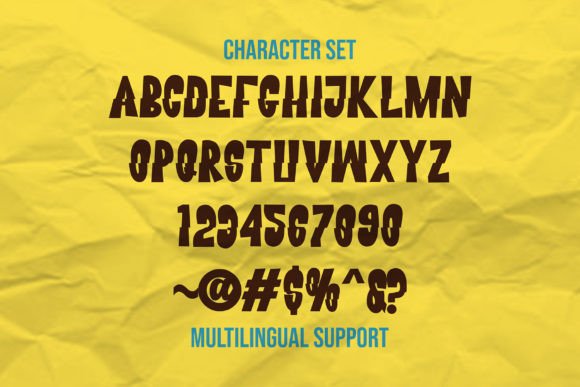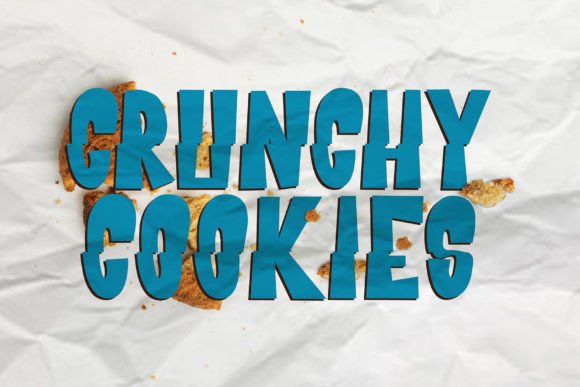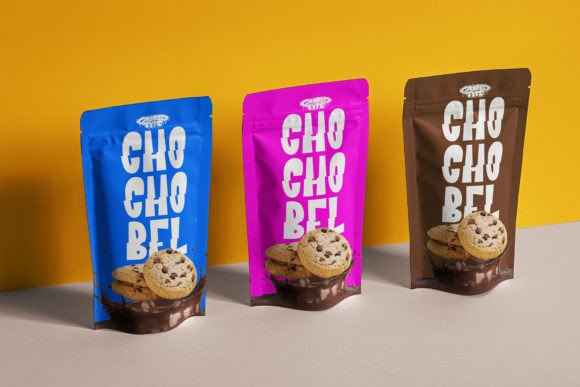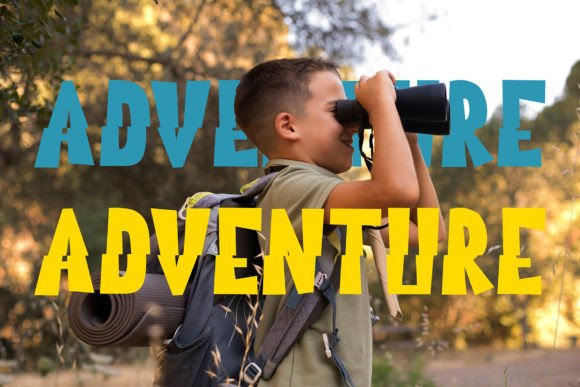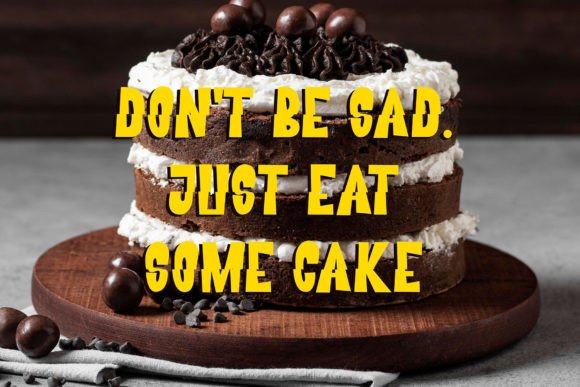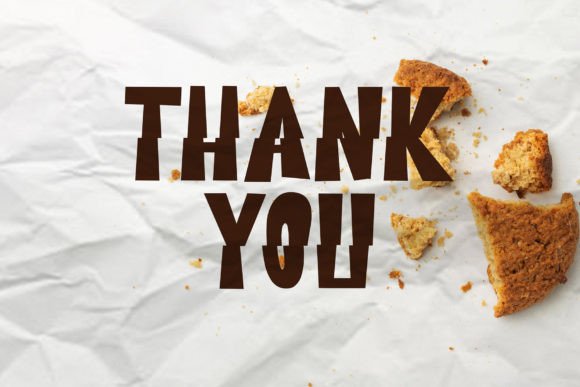
Introducing Choco Bro Font: The Cute and Chubby Display Font for Playful Designs
Are you looking for a font that can add a touch of playfulness and whimsy to your design projects? Look no further than Choco Bro Font, a delightful display font characterized by its truncated or shortened characters. In this article, we’ll explore the unique features of Choco Bro Font, its uses, and why it’s perfect for designers and crafters who want to create fun and engaging designs.
What is Choco Bro Font?
Choco Bro Font is a cute and chubby display font that features truncated or shortened characters. This means that certain parts of the letterforms are cut off or abbreviated, giving the font a unique and distinctive appearance. The truncated characters add a quirky and playful touch to the font, making it perfect for designs that require a fun and whimsical typographic style.
Characteristics of Choco Bro Font
Choco Bro Font has several characteristics that make it stand out from other fonts. Some of its key features include:
- Truncated characters: The font features truncated or shortened characters, which give it a unique and playful appearance.
- Cute and chubby design: The font has a cute and chubby design, making it perfect for children’s themes or playful designs.
- Display font: Choco Bro Font is a display font, which means it’s designed to be used at larger sizes to make a bold statement.
Uses of Choco Bro Font
Choco Bro Font is a versatile font that can be used for a variety of design projects, including:
- Children’s themes: The font’s playful and whimsical design makes it perfect for children’s themes, such as children’s books, posters, or invitations.
- Playful designs: The font’s quirky and playful touch makes it suitable for designs that require a fun and lighthearted typographic style.
- Posters and invitations: Choco Bro Font can be used to create eye-catching posters and invitations that are sure to grab attention.
- Crafting and DIY projects: The font’s cute and chubby design makes it perfect for crafting and DIY projects, such as scrapbooking, card making, or crafting.
Why Choose Choco Bro Font?
There are several reasons why designers and crafters should choose Choco Bro Font for their design projects. Some of the benefits of using Choco Bro Font include:
- Unique and distinctive appearance: The font’s truncated characters give it a unique and distinctive appearance that sets it apart from other fonts.
- Playful and whimsical design: The font’s playful and whimsical design makes it perfect for designs that require a fun and lighthearted typographic style.
- Easy to read: Despite its truncated characters, Choco Bro Font is easy to read, making it suitable for designs that require a clear and legible typographic style.
Tips for Using Choco Bro Font
Here are some tips for using Choco Bro Font in your design projects:
- Use it for headlines: Choco Bro Font is perfect for headlines, where its bold and playful design can make a big impact.
- Pair it with other fonts: The font can be paired with other fonts to create a unique and visually appealing typographic style.
- Experiment with colors: Choco Bro Font can be used with a variety of colors to create a fun and playful design.
Choco Bro Font is a delightful display font that can add a touch of playfulness and whimsy to your design projects. Its unique and distinctive appearance, cute and chubby design, and playful typographic style make it perfect for designs that require a fun and lighthearted typographic style. Whether you’re a designer or crafter, Choco Bro Font is a great choice for your next project.